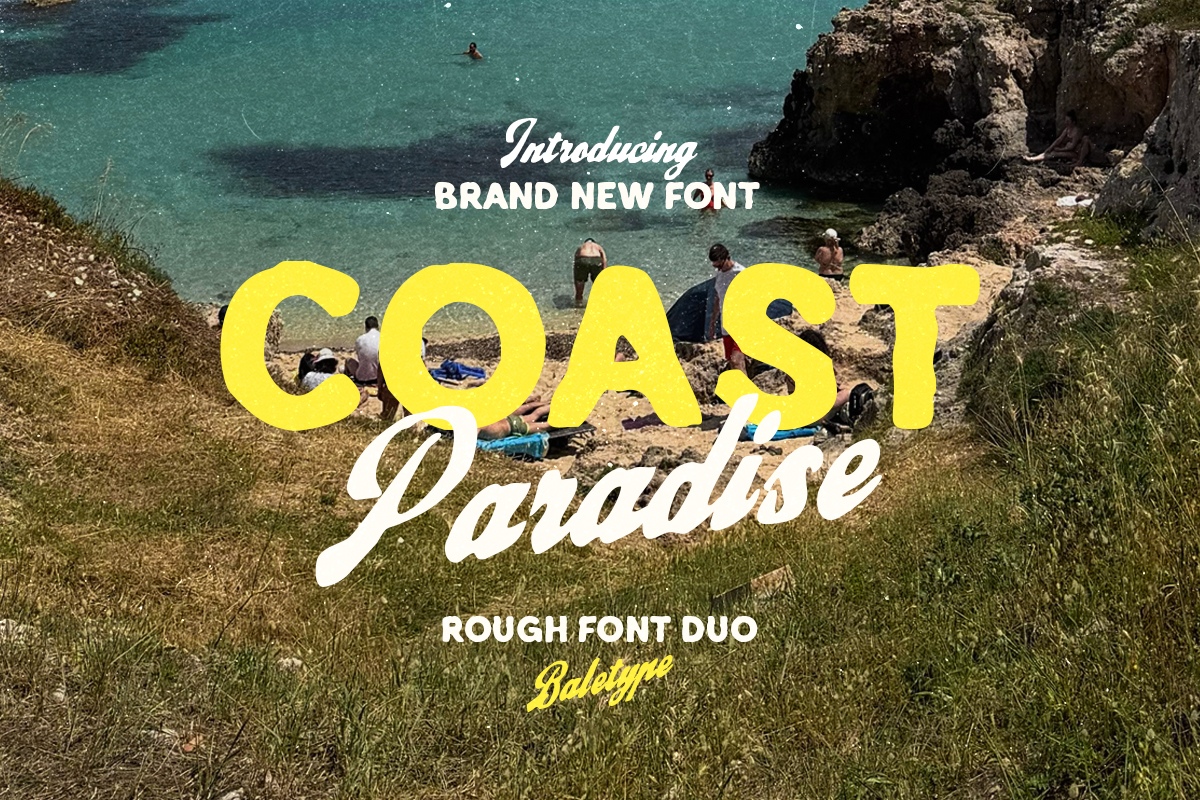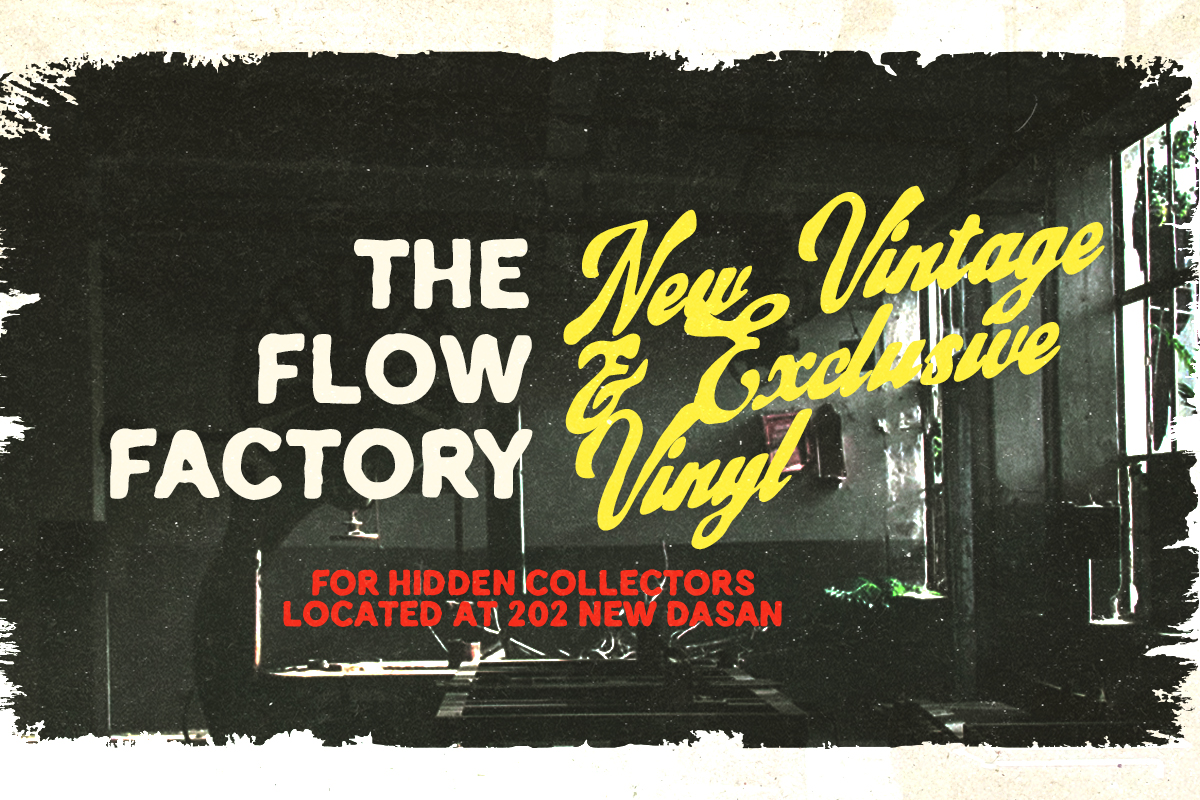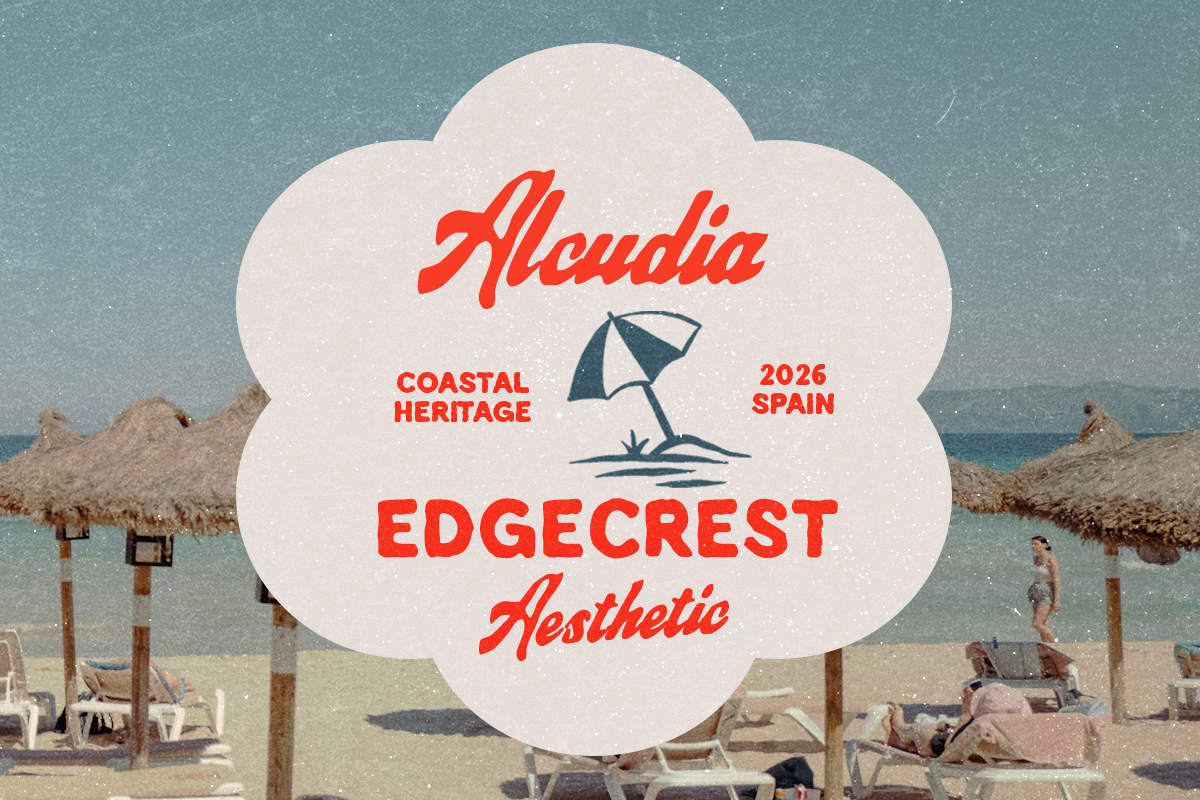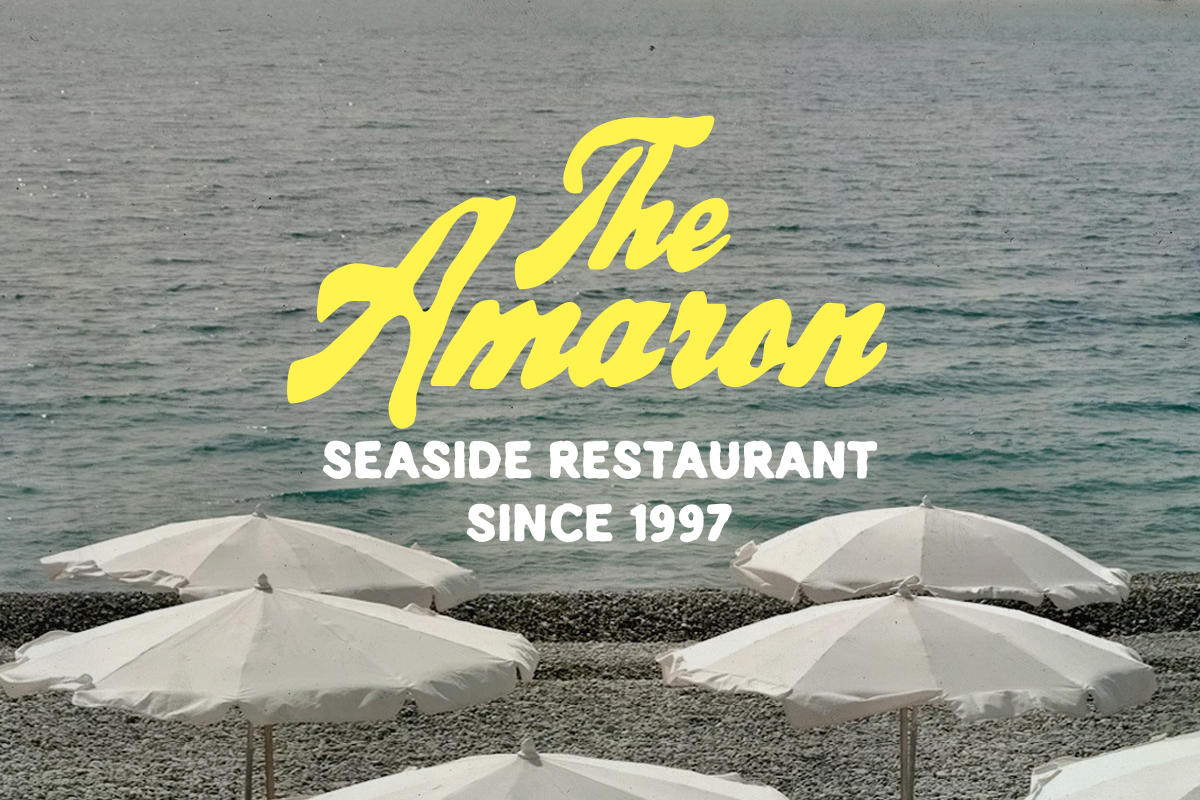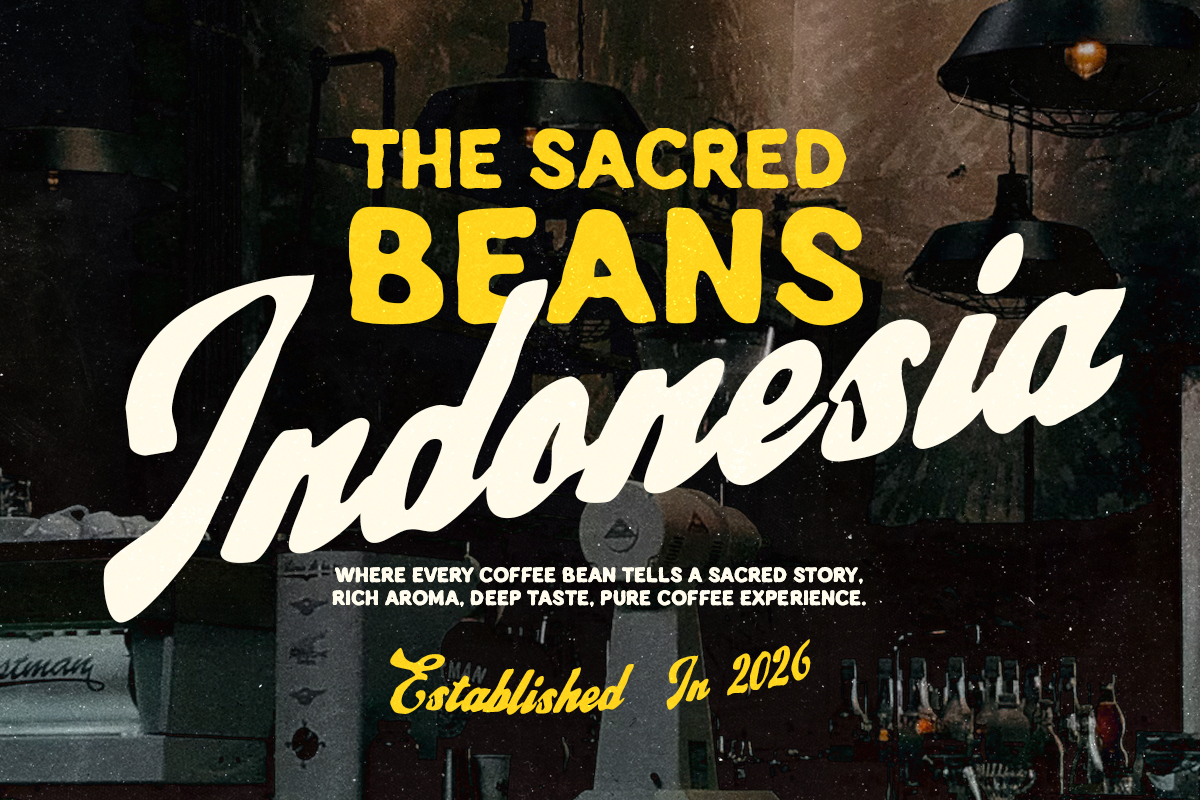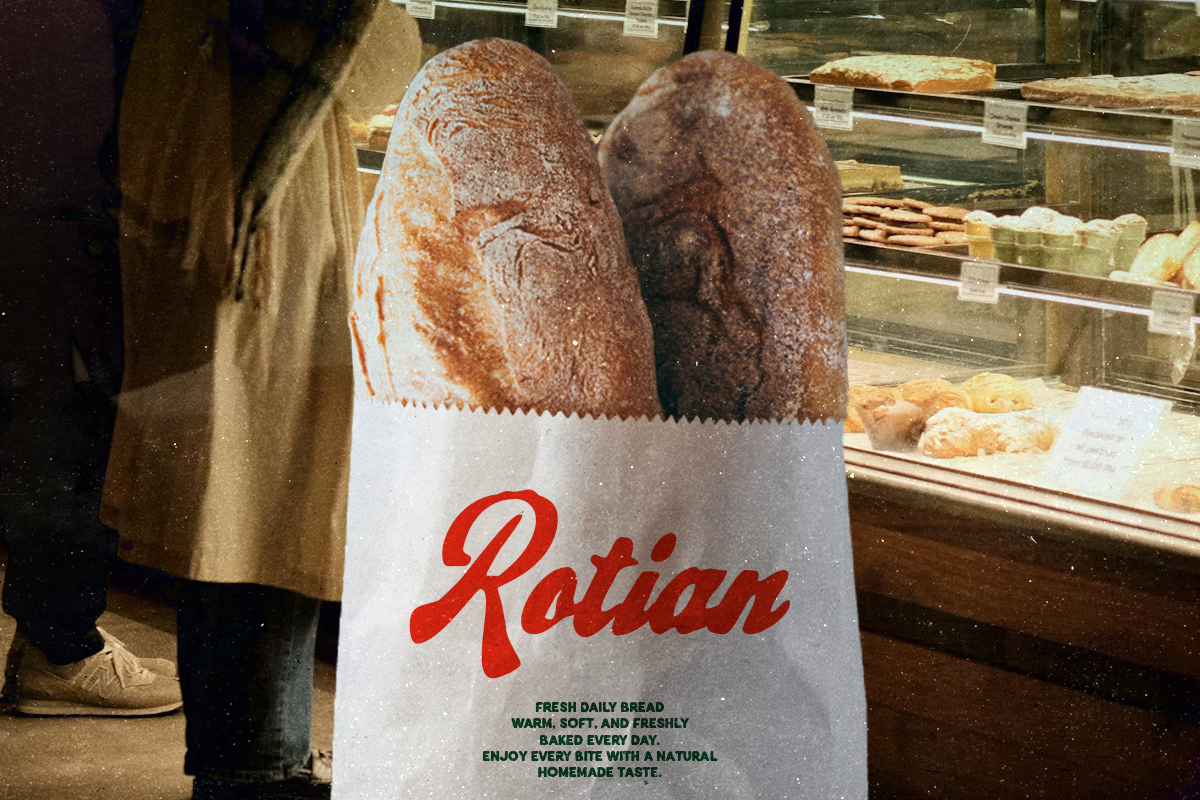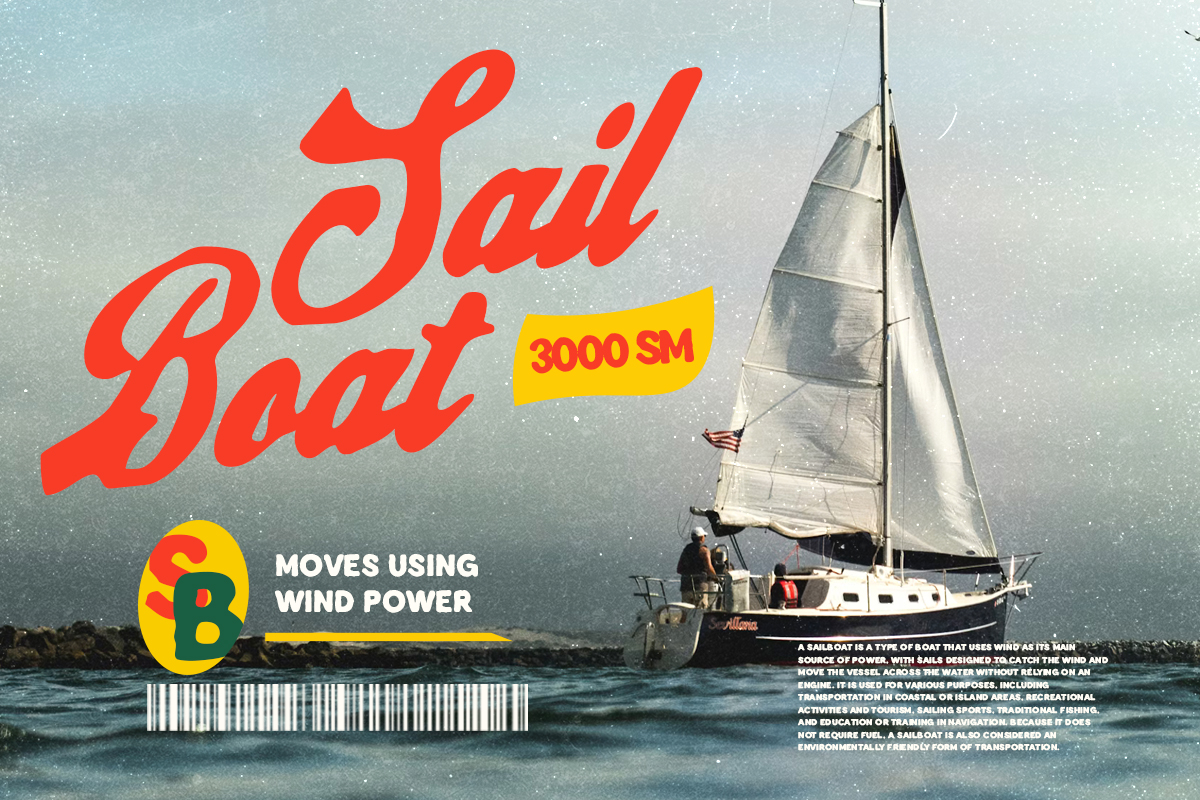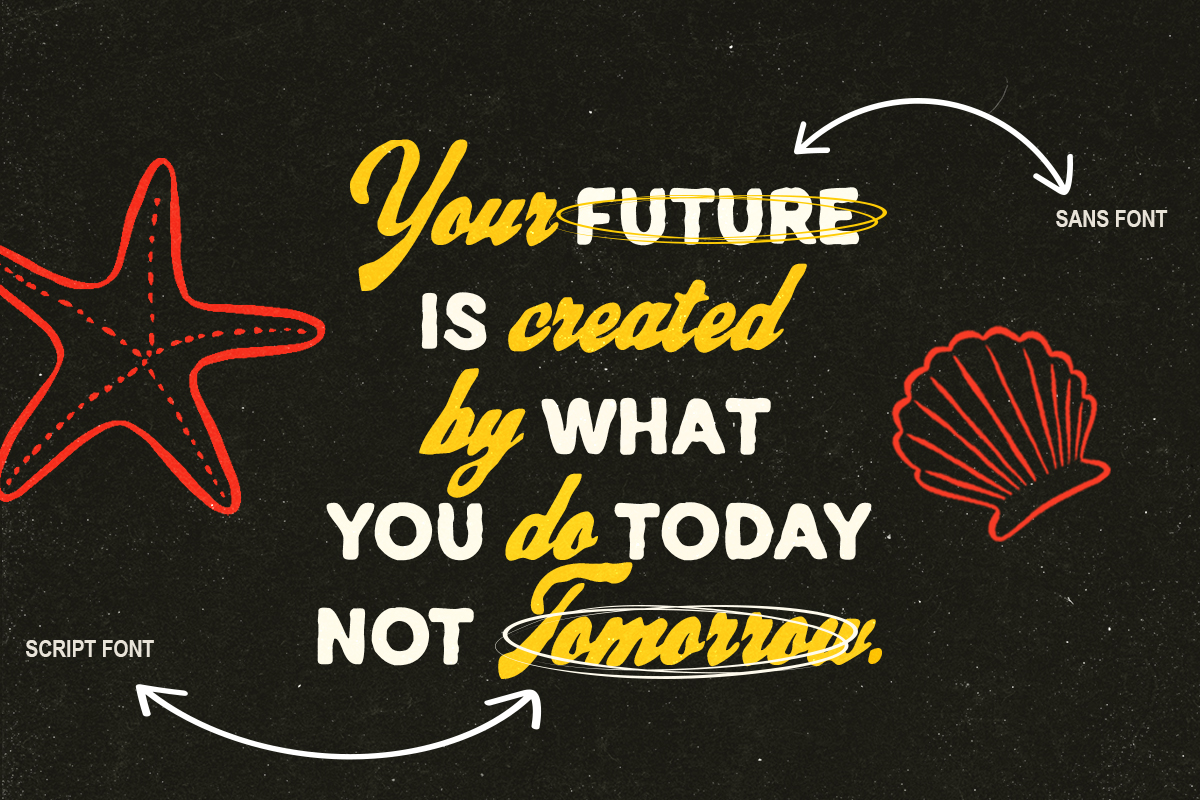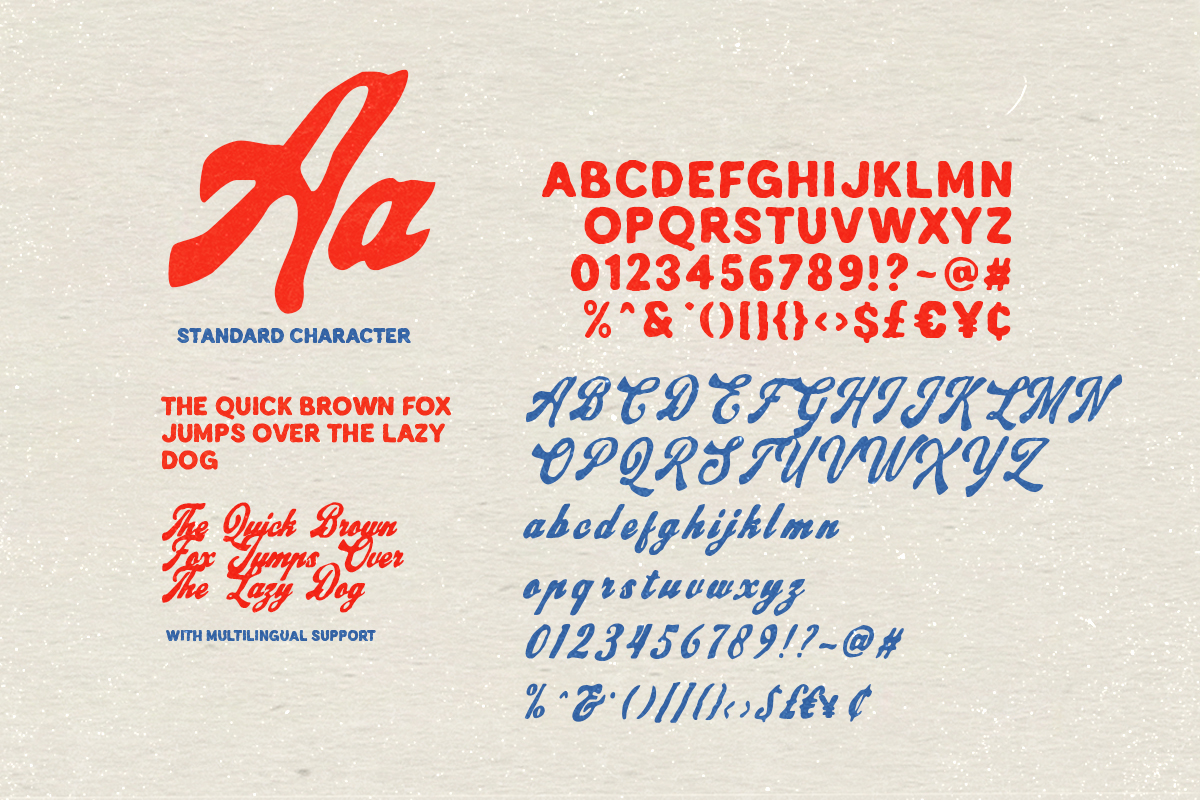
Introducing Coast Paradise, a rugged hand-drawn font duo inspired by outdoor adventures and the summer beach vacation. Featuring a sans serif paired with a flowing italic script, this versatile combination is designed to complement each other perfectly, creating effortless and eye-catching typography. With its authentic handcrafted texture, Coast Paradise is ideal for posters, outdoor-themed projects, greeting cards, branding, logotypes, packaging, quotes, apparel, and any design that calls for a natural, handmade touch. Plus Coast Paradise includes multilingual support, making it a versatile choice for designers around the world.
Coast Paradise – Rough Font Duo
Introducing Coast Paradise, a rugged hand-drawn font duo inspired by outdoor adventures and the summer beach vacation.